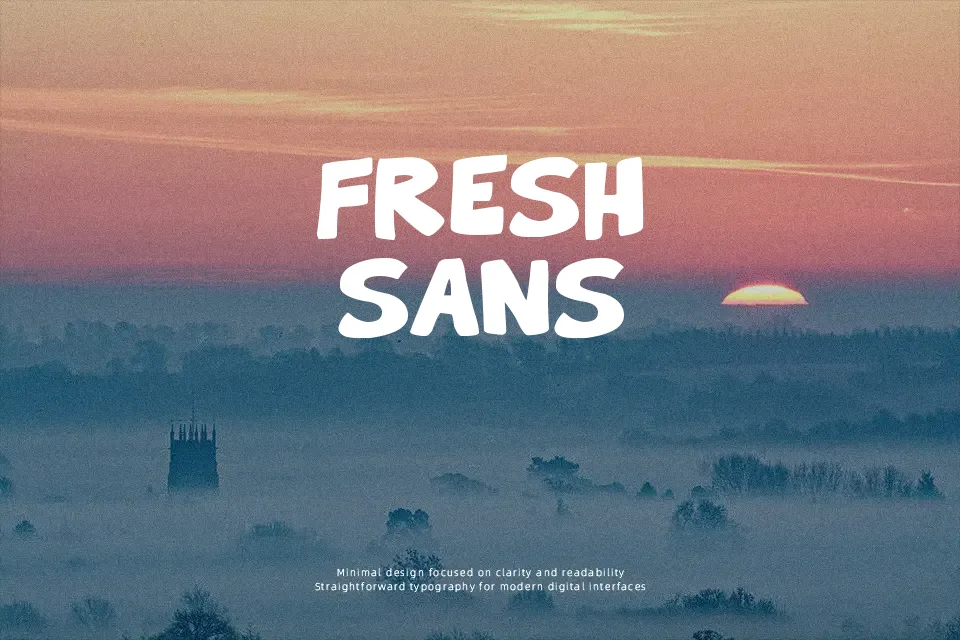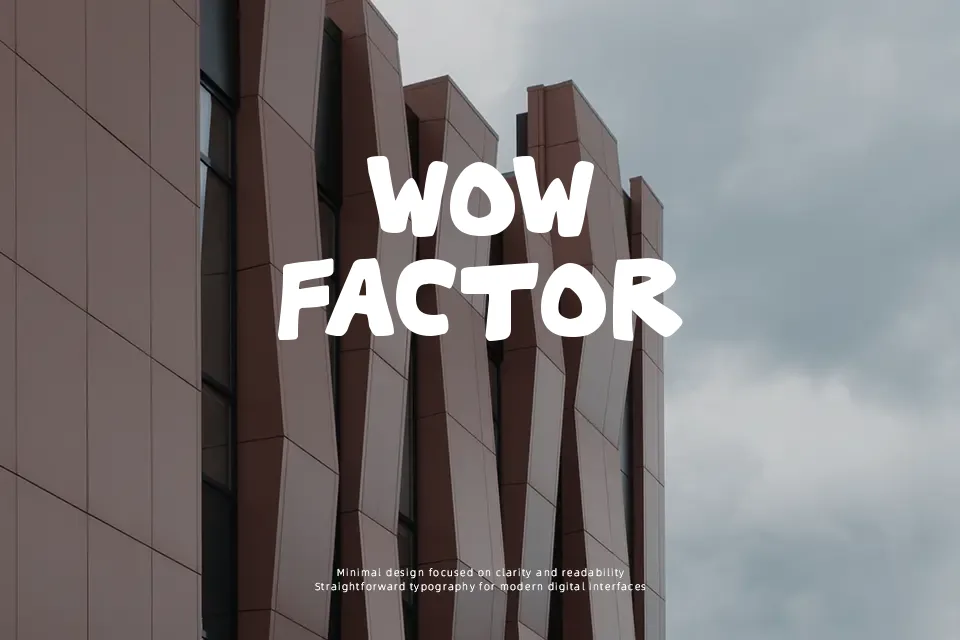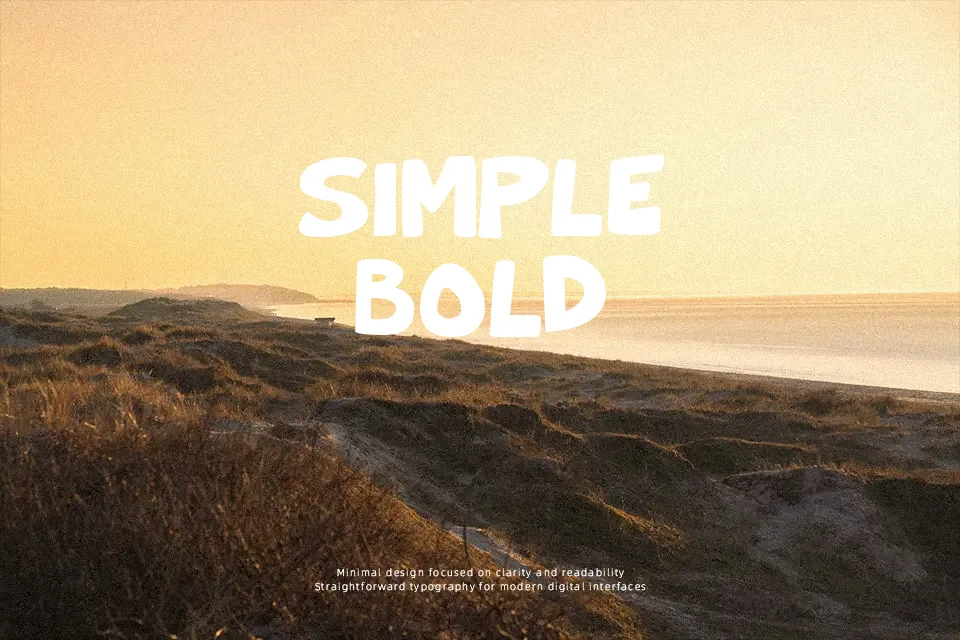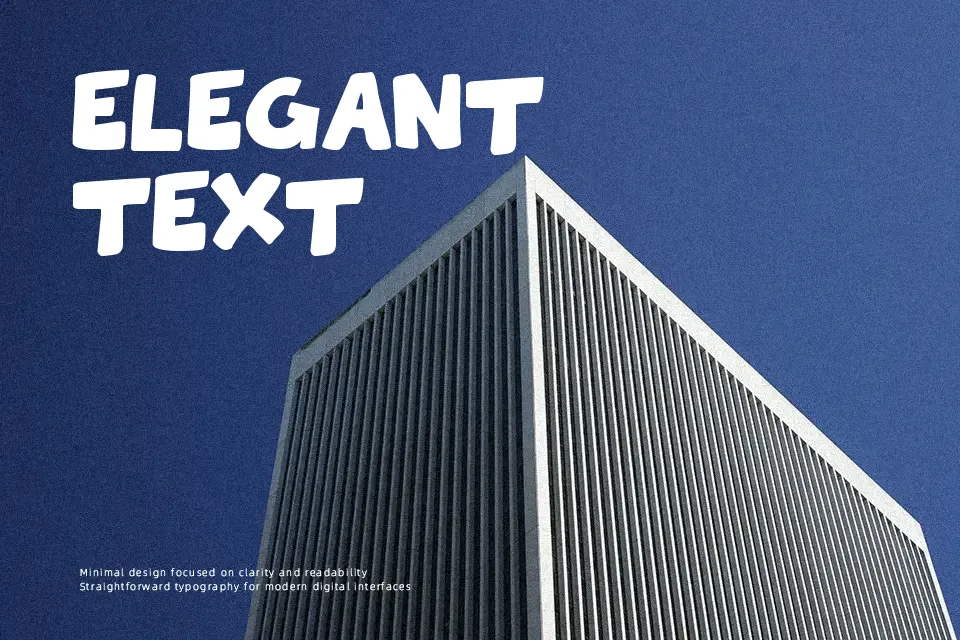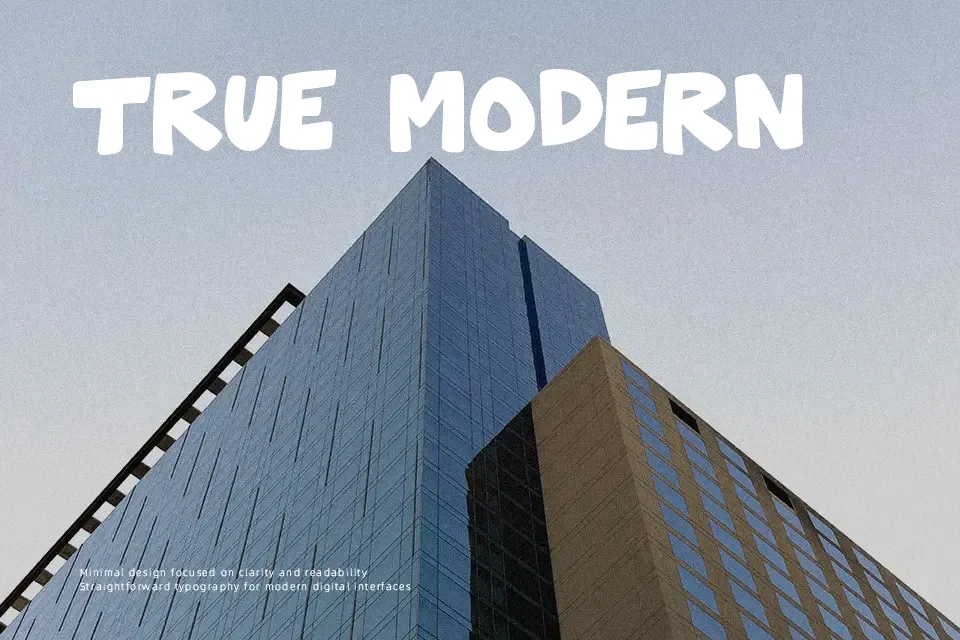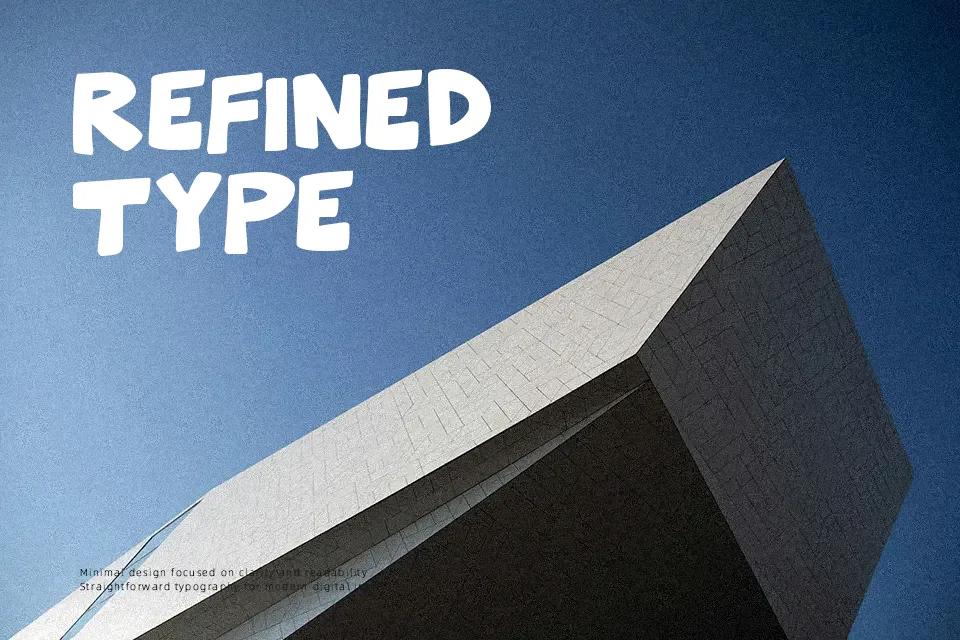
Toon Cats Font
Toon Cats Font introduces an animated display structure characterized by thick, uniform strokes and softened terminals across its entire character set. Generous letter spacing and wide proportions allow each glyph to breathe, preserving individual character silhouettes across medium and large display scales. In practical application, the typeface excels across toy packaging, youth-oriented signage, and comic book chapter headers where an approachable tone is essential. The balanced internal counters ensure that headline text remains instantly decipherable from a distance. However, the prominent stroke mass and quirky geometry cause dense text blocks to feel cluttered, making the design unsuitable for extended body copy or small technical labels.
Best For: toy packaging, children’s book titles, comic chapter headers, animated video graphics
Not Ideal For: continuous body text, mobile interface labels, legal disclaimers, editorial magazine columns